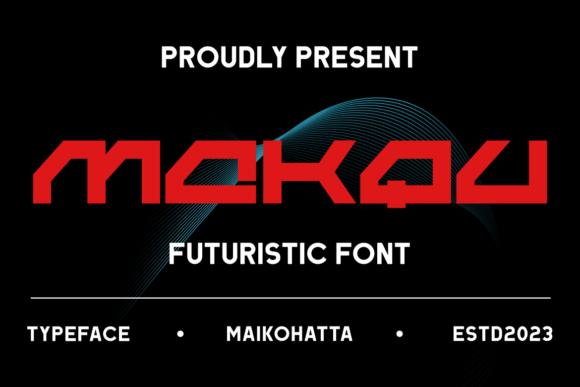
In a world of digital creations and technical advancements, Makqu Font emerges as a visionary display font, crafted to capture the essence of futuristic design. Inspired by the marvels of technology, this font exudes a captivating aura of modernity, innovation, and raw energy that will propel your designs into the realm of the extraordinary.
Makqu's sharp lines, geometric letter shapes, and futuristic elements are a testament to its technological roots. This font is more than just a collection of characters; it's an artistic expression of the digital era, perfectly suited for projects that demand a touch of technological sophistication. Whether you're designing websites, logos, posters, or any other digital or print media, Makqu Font will elevate your creations to new heights of visual appeal.
With Makqu Font as your design companion, you'll embark on a journey through the frontiers of creativity, where imagination and technology converge to produce captivating masterpieces. Its suitability for projects related to technology, robotics, science, and modern lifestyle makes it an indispensable tool for designers seeking to create visually stunning and cutting-edge designs.
Imagine your designs adorned with the sleek and futuristic characters of Makqu Font, drawing the attention of your audience with its undeniable charm and captivating presence. Your projects will radiate an aura of innovation and progress, leaving a lasting impression on anyone who encounters them.
Elevate your designs to the next level; embrace the power of Makqu Font, and unleash your creativity in the digital realm. Experience the thrill of crafting designs that resonate with the spirit of the technological age, designs that leave an indelible mark on the minds of your audience. Embrace Makqu Font today and unlock the full potential of your creative genius.